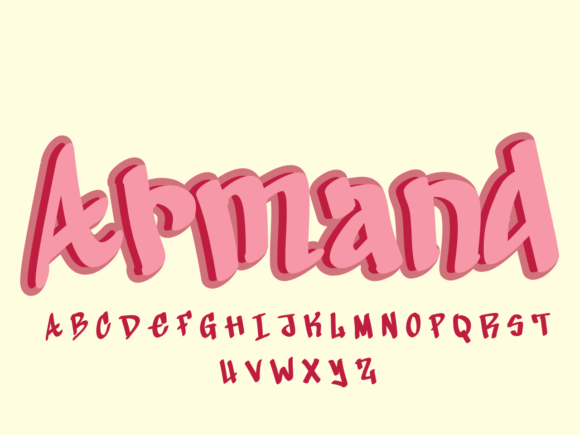
Introducing Armand Font: The Sweet and Friendly Handwritten Font
When it comes to creating visually appealing designs, typography plays a crucial role. A font can make or break the aesthetic of a project, and that’s why choosing the right one is essential. If you’re looking for a sweet and friendly handwritten font that can elevate your designs, look no further than Armand Font. In this article, we’ll dive into the world of Armand Font and explore its unique features, uses, and benefits.
What is Armand Font?
Armand Font is a beautiful, handwritten font that exudes warmth and friendliness. Its natural and unique style makes it incredibly fitting for a wide range of designs, from creative projects to commercial ones. The font’s smooth and flowing lines give it a personal touch, making it perfect for adding a human element to your designs.
Key Features of Armand Font
- Handwritten style: Armand Font has a genuine handwritten look that adds a touch of personality to your designs.
- Natural and unique: The font’s natural and unique style sets it apart from other fonts, making it perfect for creative projects.
- Versatile: Armand Font can be used for a wide range of designs, from posters and flyers to digital products and branding.
- Easy to read: The font’s clear and smooth lines ensure that it’s easy to read, even at smaller sizes.
The Benefits of Using Armand Font
So, why should you choose Armand Font for your next project? Here are just a few benefits of using this amazing font:
1. Adds a Personal Touch
Armand Font’s handwritten style adds a personal touch to your designs, making them more relatable and engaging.
2. Stands Out from the Crowd
The font’s unique style sets it apart from other fonts, ensuring that your designs stand out from the crowd.
3. Versatile and Flexible
Armand Font can be used for a wide range of designs, from creative projects to commercial ones, making it a versatile addition to your font library.
4. Easy to Pair with Other Fonts
Armand Font pairs well with other fonts, making it easy to create harmonious and visually appealing typography.
Uses of Armand Font
Armand Font is incredibly versatile, and its uses are endless. Here are just a few ideas to get you started:
1. Creative Projects
Armand Font is perfect for creative projects, such as art, design, and photography.
2. Commercial Designs
The font can be used for commercial designs, such as branding, advertising, and packaging.
3. Digital Products
Armand Font can be used for digital products, such as e-books, apps, and websites.
4. Print Materials
The font can be used for print materials, such as posters, flyers, and brochures.
Tips for Using Armand Font
Here are a few tips for using Armand Font effectively:
1. Use it for Headings and Titles
Armand Font is perfect for headings and titles, where its unique style can shine.
2. Pair it with Other Fonts
Pair Armand Font with other fonts to create visually appealing typography.
3. Experiment with Colors and Textures
Experiment with different colors and textures to add depth and interest to your designs.
4. Keep it Simple
Don’t overcomplicate your designs – keep it simple and let Armand Font’s unique style shine.
In conclusion, Armand Font is a sweet and friendly handwritten font that can elevate your designs. Its natural and unique style makes it incredibly fitting for a wide range of designs, from creative projects to commercial ones. With its versatility, flexibility, and ease of use, Armand Font is a great addition to any font library.